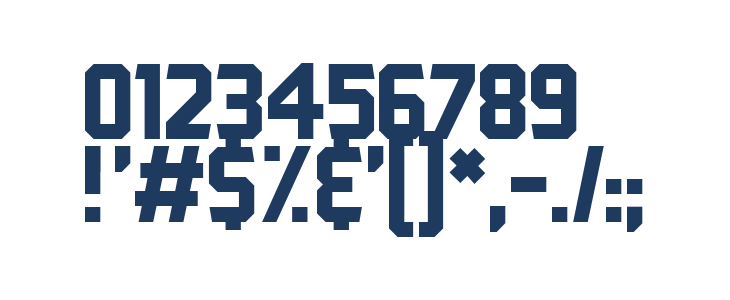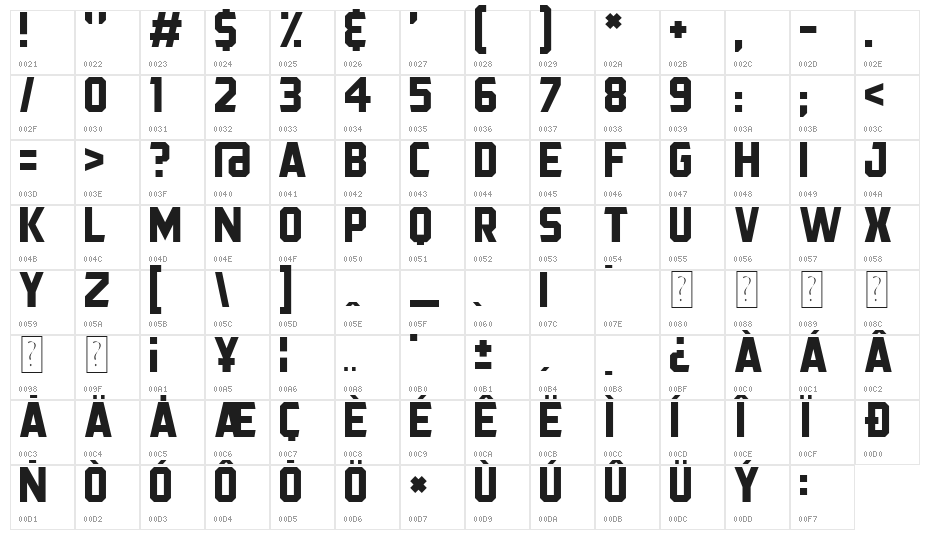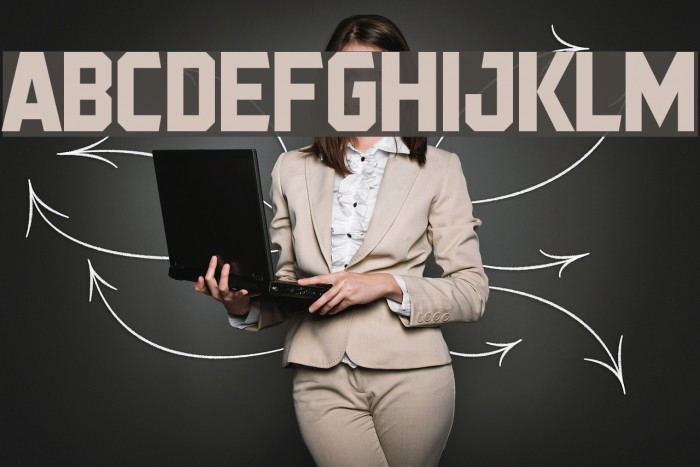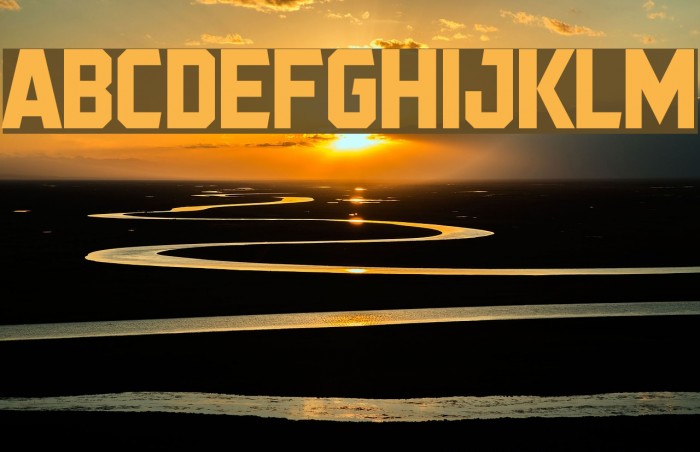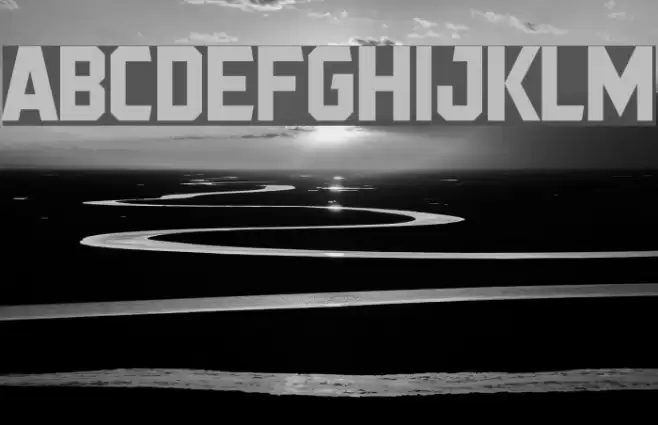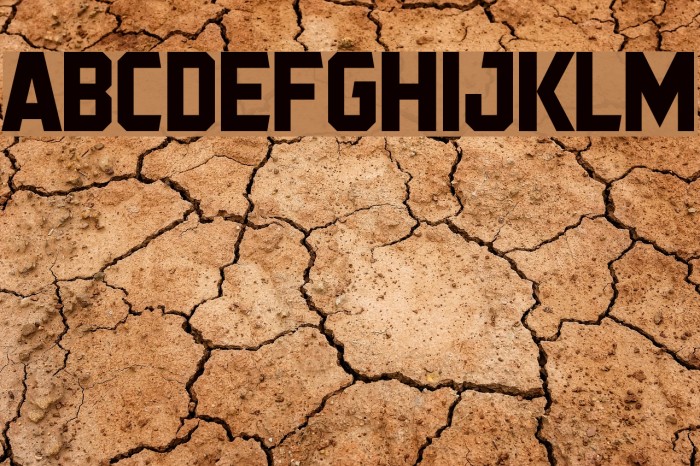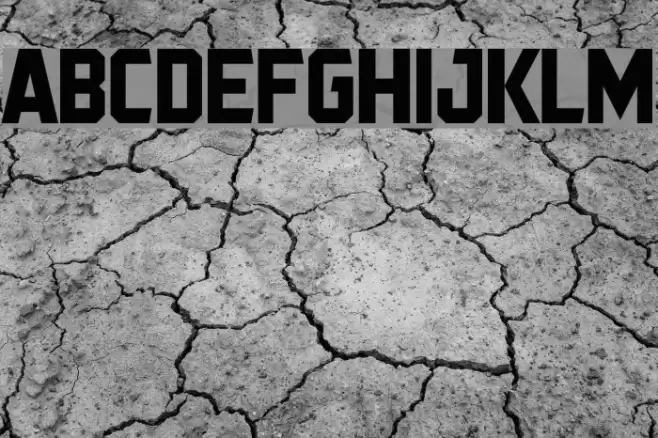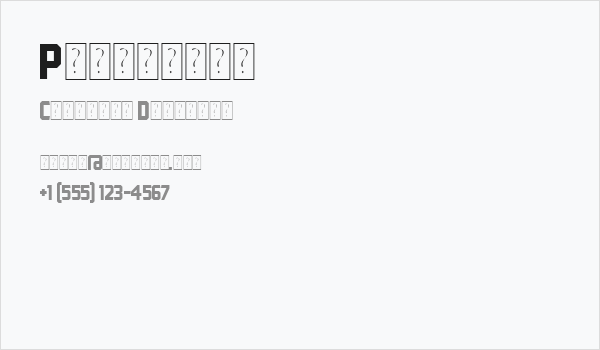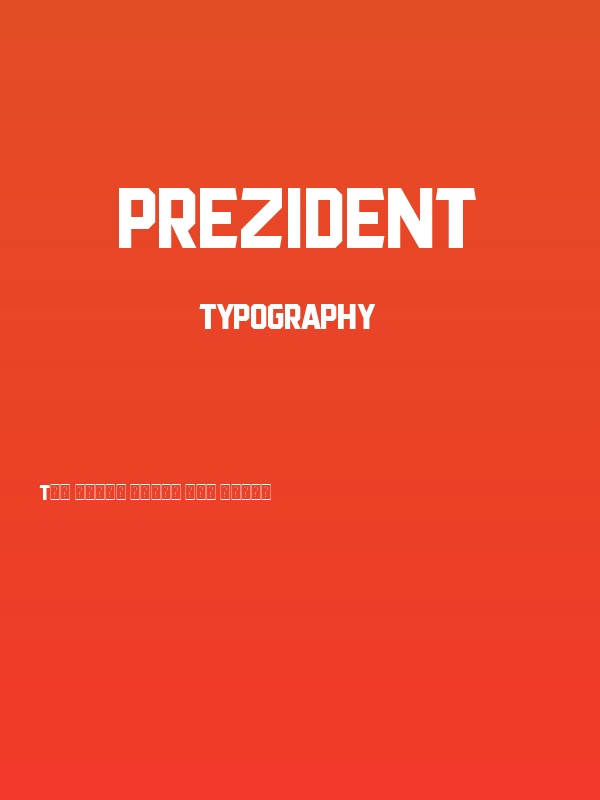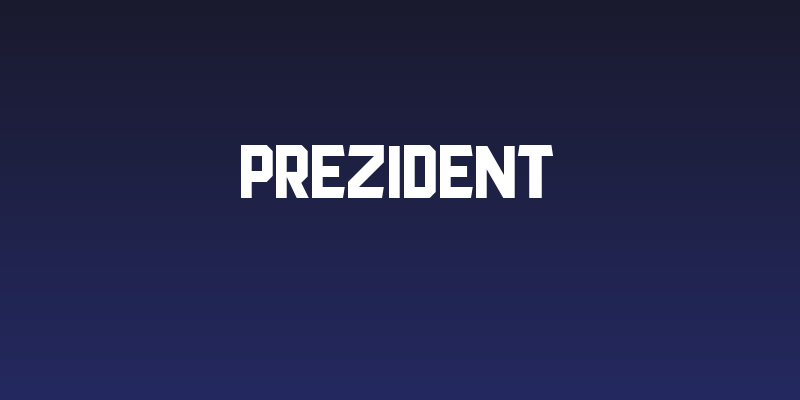
Prezident Font
Prezident Description
This font features a bold, geometric design with strong, angular lines and a modern aesthetic. The characters are uniformly structured, providing a sense of stability and strength. The uppercase letters are particularly striking, with a blocky appearance that commands attention. The numbers and special characters maintain this bold style, ensuring consistency across all glyphs. The font's design is reminiscent of industrial or futuristic themes, making it suitable for projects that require a strong visual impact.
| Proposed Projects | Ideal for branding, posters, headlines, and any design requiring a bold, impactful typeface. |